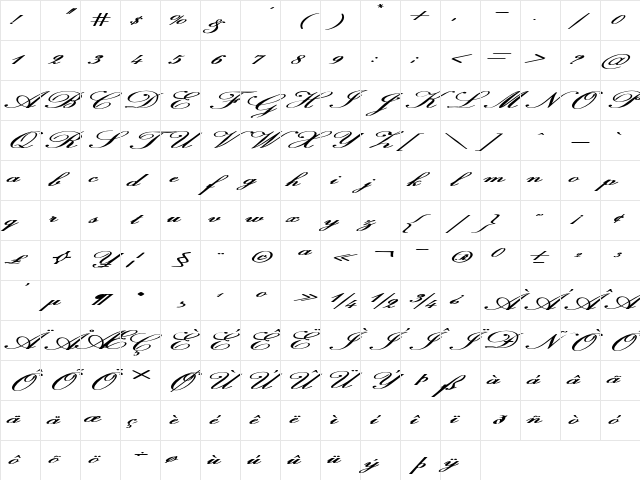
Cherry Script Extra-expanded Bold Free Font
Cherry Script Extra-expanded Bold
Style: Extra-expanded Bold
Cherry Script Family
Cherry Script Extra-expanded Bold
Complete Cherry Script Extra-expanded Bold glyph index. Displaying only characters natively supported by Cherry Script Extra-expanded Bold font.
Design Context for Cherry Script
Cherry Script flows with the natural rhythm of handwritten lettering, making it ideal for designs that call for warmth and personal expression. Its bold stroke weight gives it real presence on the page.
Font Pairing: Combine Cherry Script with a simple geometric sans for maximum contrast - the tension between flowing curves and clean structure is a classic typographic pairing.
Pro Tip: Use Cherry Script for short runs of text - names, titles, or taglines. Extended body copy in script faces tires the eye quickly.